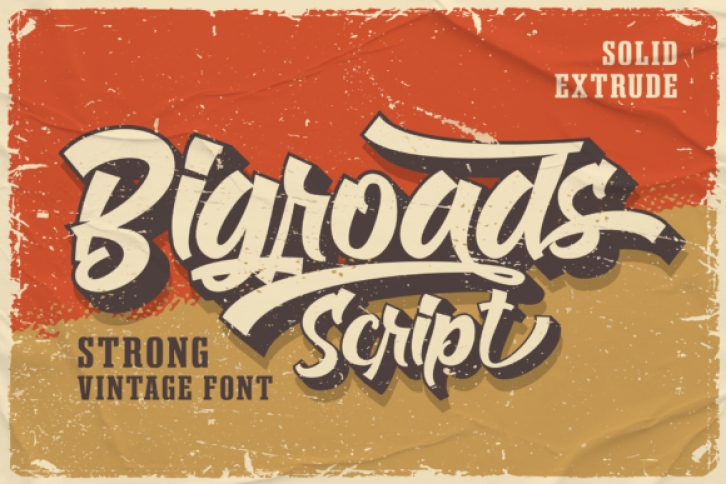
Bigroads Script is a layered bold script font, featuring an incredibly unique retro font. Add it to your most creative ideas and notice how it makes them come alive!